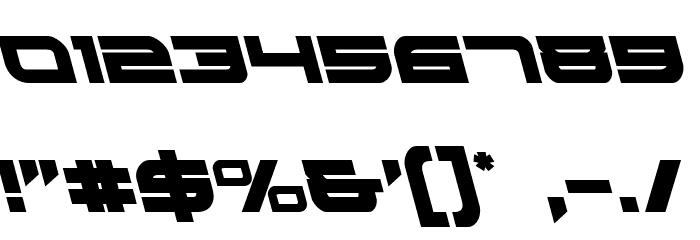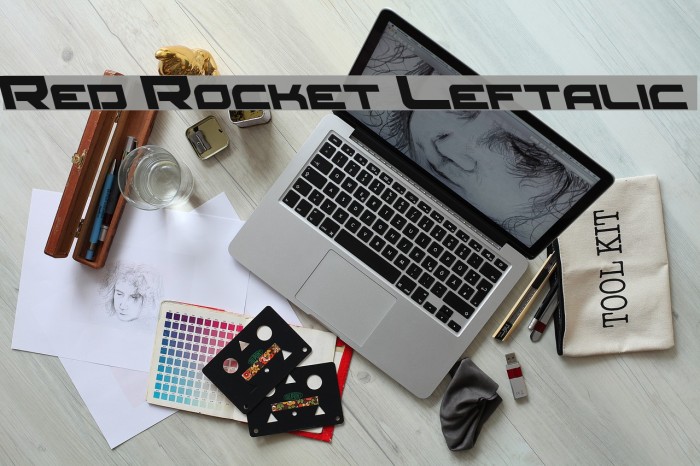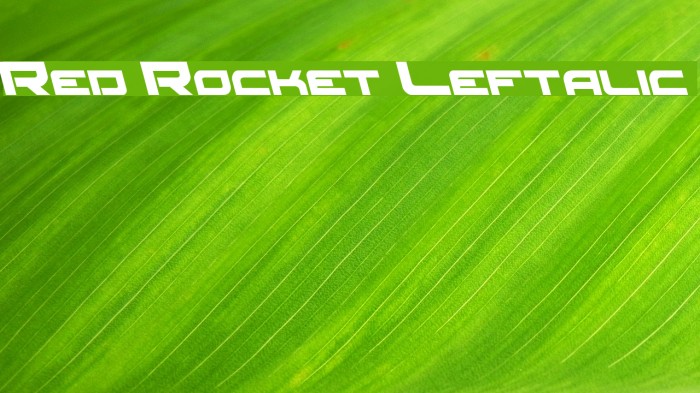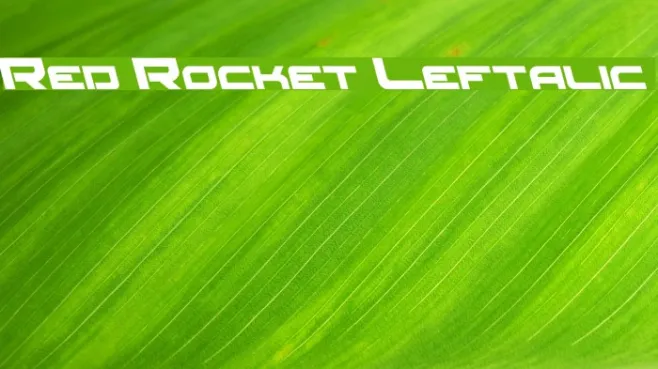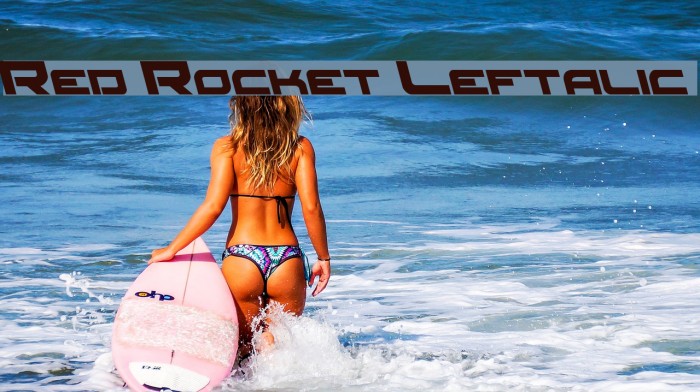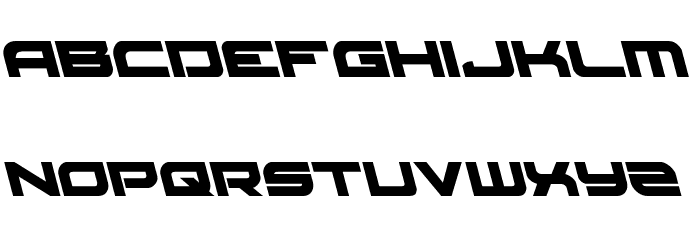
Red Rocket Leftalic Font
Red Rocket Leftalic Description
This font features a bold, futuristic design with a distinct slant to the left, giving it a dynamic and energetic appearance. The characters are wide and have a geometric structure, with sharp angles and clean lines. The uppercase and lowercase letters maintain a consistent style, while the numerals and special characters complement the overall aesthetic. The font's boldness and unique style make it stand out, suitable for projects that require a modern and impactful look.
| Proposed Projects | Ideal for sci-fi themed projects, video game titles, tech branding, and dynamic posters. |